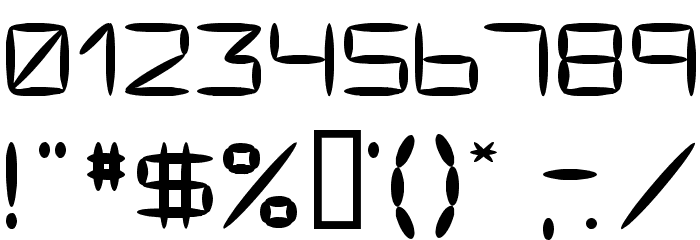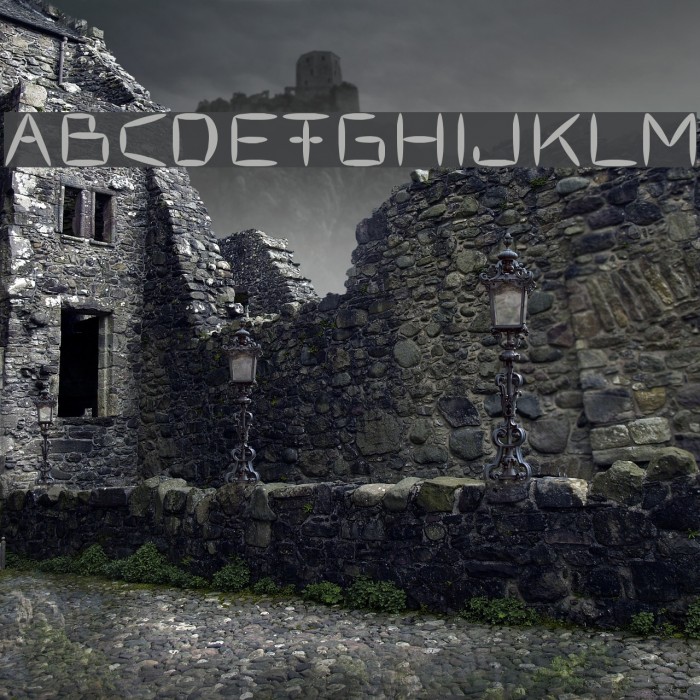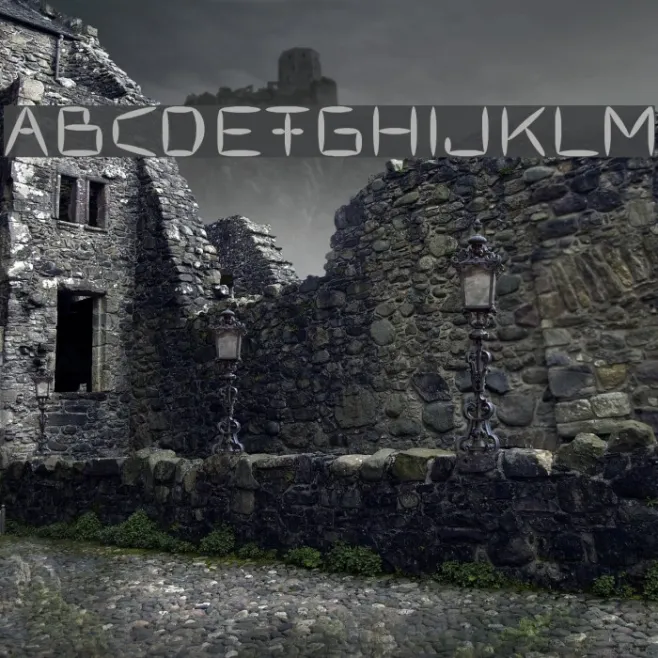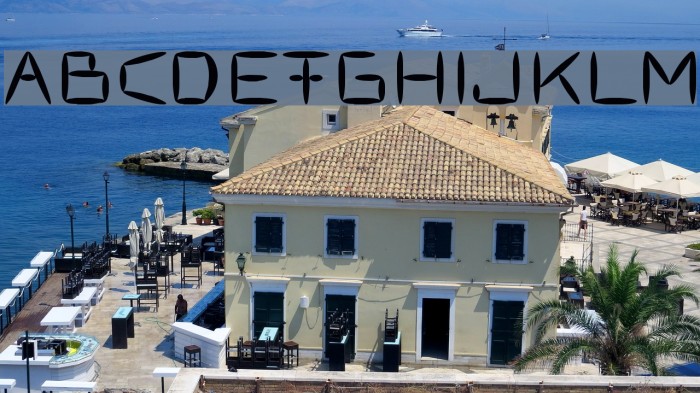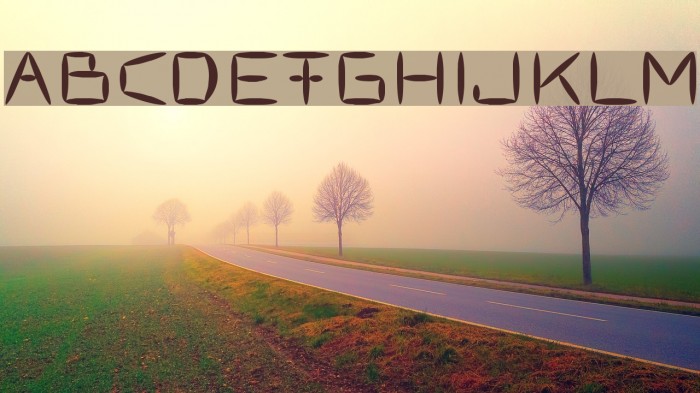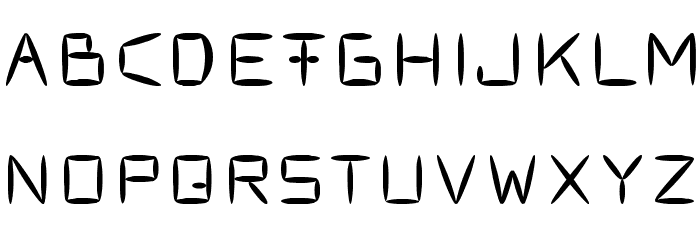
Fracksausen Font
Fracksausen Description
This font features a futuristic and digital-inspired design, reminiscent of LED displays or digital clocks. The characters are composed of straight lines and sharp angles, giving them a geometric and structured appearance. Each letter and number is distinct, with a consistent width and height, creating a uniform look across the typeface. The font includes uppercase and lowercase letters, numbers, and a variety of special characters, making it versatile for different uses. Its unique style makes it stand out, perfect for projects that require a modern and tech-savvy aesthetic.
| Use Case | Headlines, Logos, Digital interfaces |
| Proposed Projects | Ideal for tech-related branding, digital interfaces, sci-fi themed designs, and modern posters. |